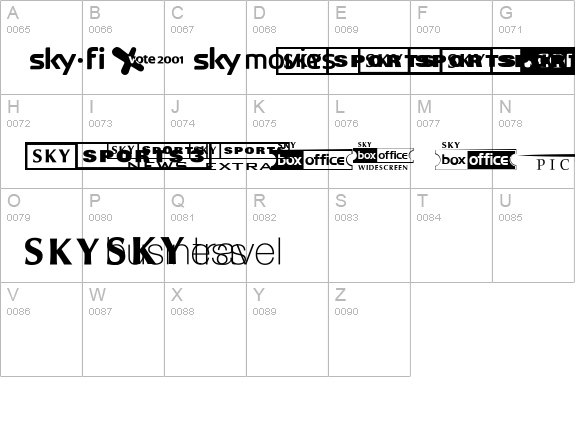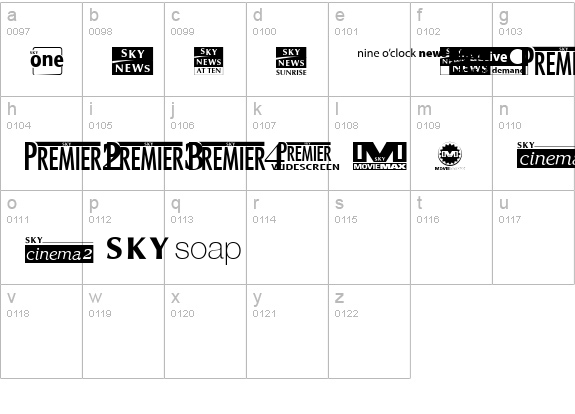
Introducing the captivating and versatile Sky 1998 Channel Logos font, a true gem for all typography enthusiasts. This stunning typeface effortlessly combines modern elegance with a touch of nostalgia, making it perfect for a wide range of design projects. The Sky 1998 Channel Logos font boasts a unique blend of clean lines and stylish curves, resulting in a harmonious balance that captures attention and adds a touch of sophistication to any design. Its sleek and minimalist appearance makes it suitable for a variety of applications, from branding and logo design to editorial layouts, web design, and more. What sets the Sky 1998 Channel Logos font apart is its remarkable versatility. Whether you're aiming for a contemporary look or a retro vibe, this font has got you covered. Its extensive glyph set includes a wide range of characters, punctuation marks, and special symbols, allowing you to unleash your creativity and bring your vision to life. But here's the best part – the Sky 1998 Channel Logos font is absolutely free! Yes, you read that right. This exceptional typeface is freely available to download at FontsMarket.com, making it accessible to designers, hobbyists, and anyone looking to add a touch of elegance to their projects without breaking the bank. So why wait? Don't miss out on the opportunity to elevate your designs with the Sky 1998 Channel Logos font. Download it now from FontsMarket.com and let your creativity soar to new heights.